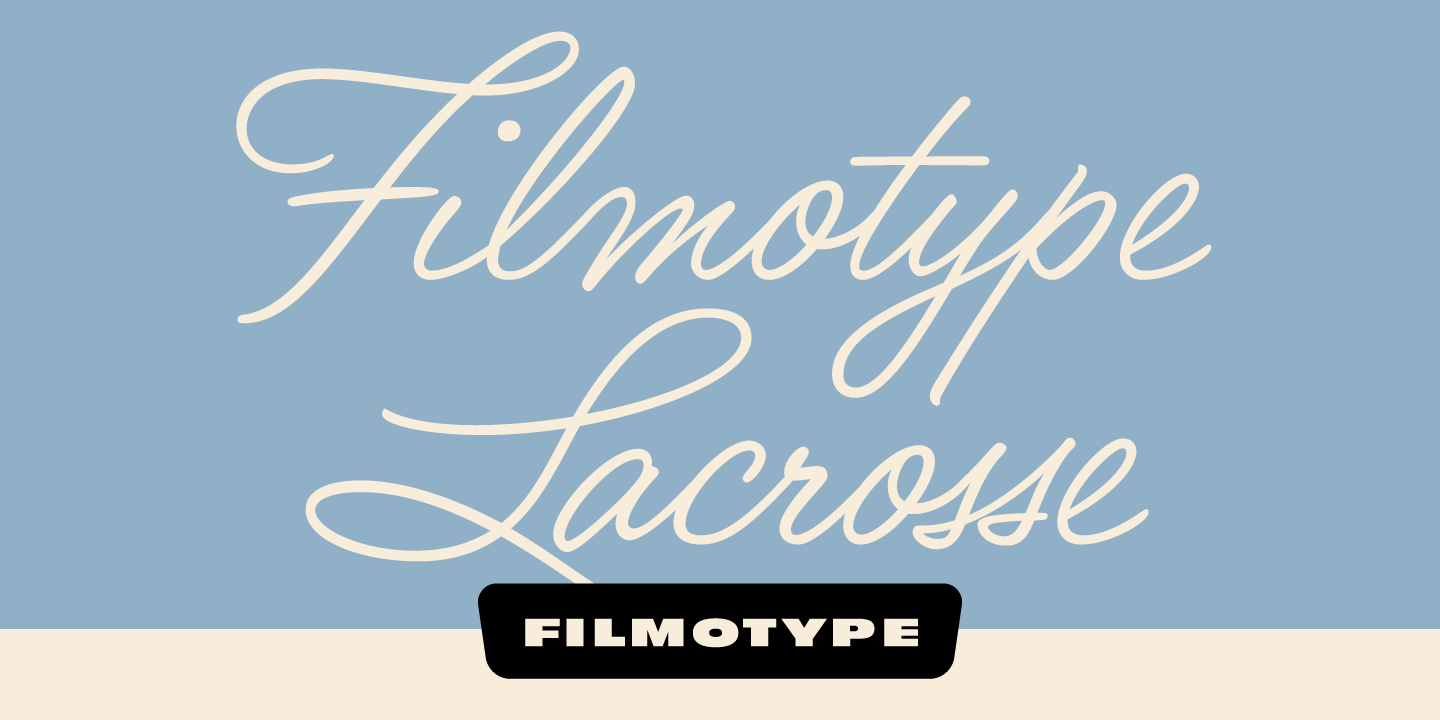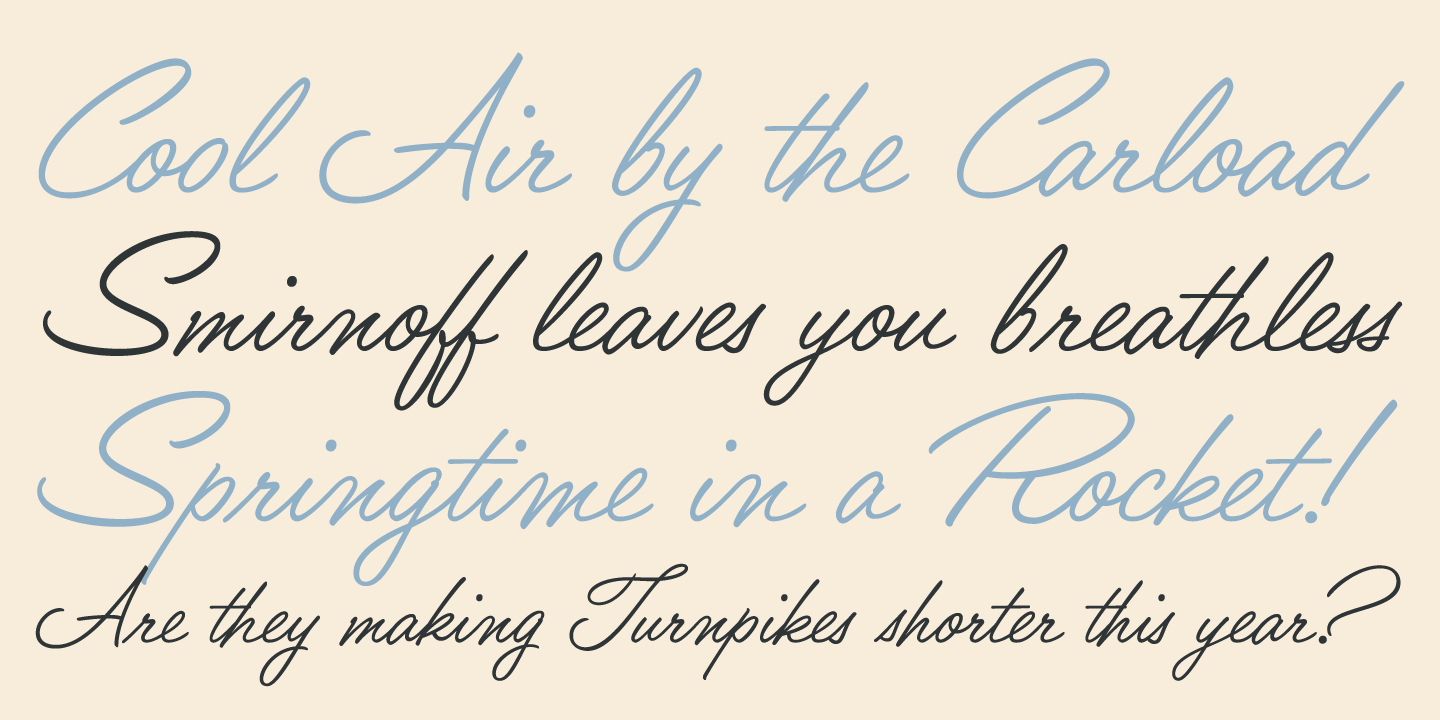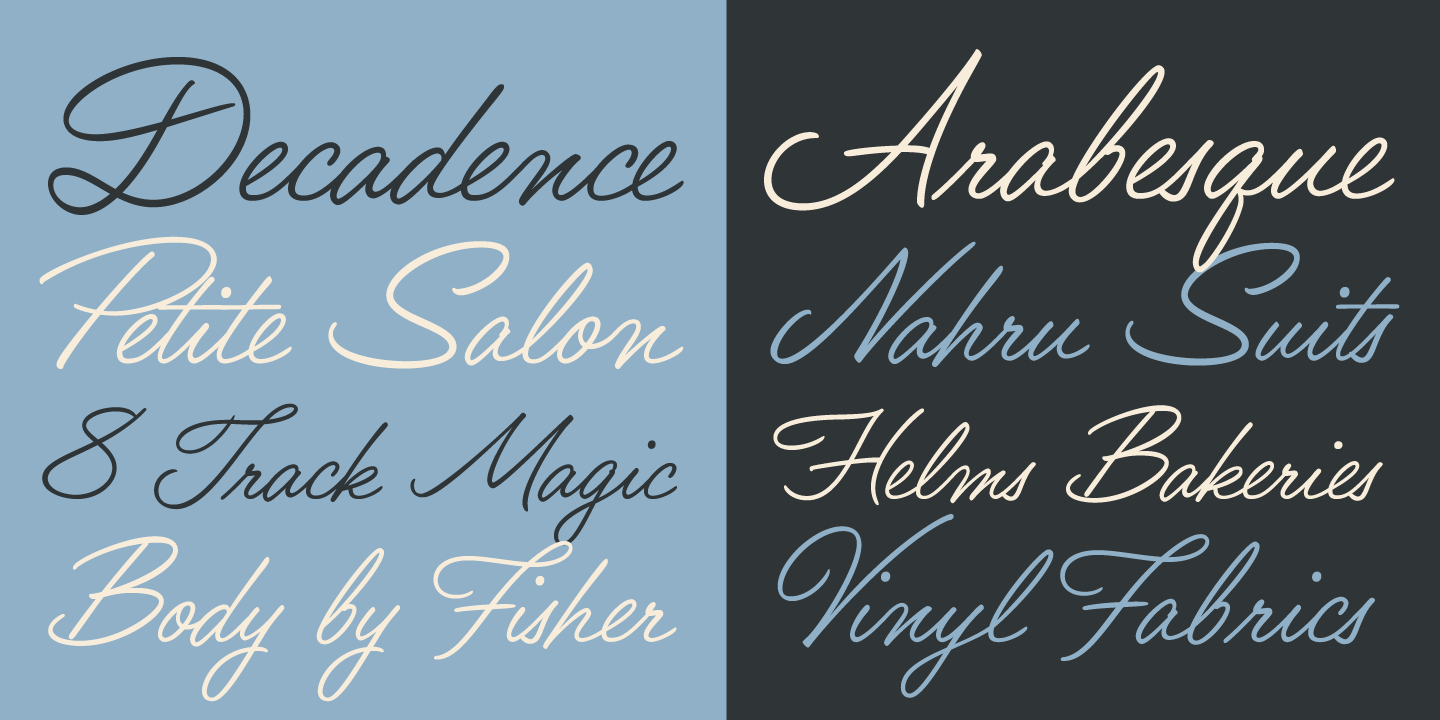
Filmotype LaCrosse
Filmotype LaCrosse is a retro script font with a polished handwritten feel, blending casual ease with a more formal, display-ready rhythm. Its vintage personality points to mid-century lettering styles, giving layouts a warm, nostalgic tone that feels at home in work inspired by the 1940s, 1950s, and 1960s.
With its flowing script character, this single-style family is a natural fit for logos, packaging, poster work, signage, invitations, and other headline uses where you want expressive lettering with period charm. It brings the kind of stylized motion and personality that can make branding and decorative display pieces feel more distinctive without losing readability.